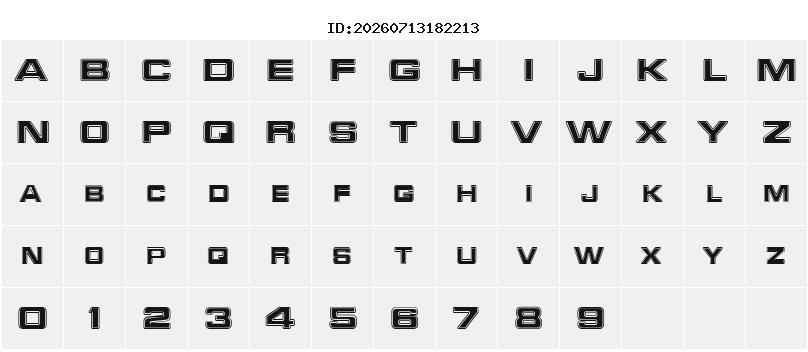
About Bad.ttf
Bad.ttf is a modern, elegant sans-serif font designed for ultimate readability and visual harmony. Perfect for branding, headlines, web design, and print materials.